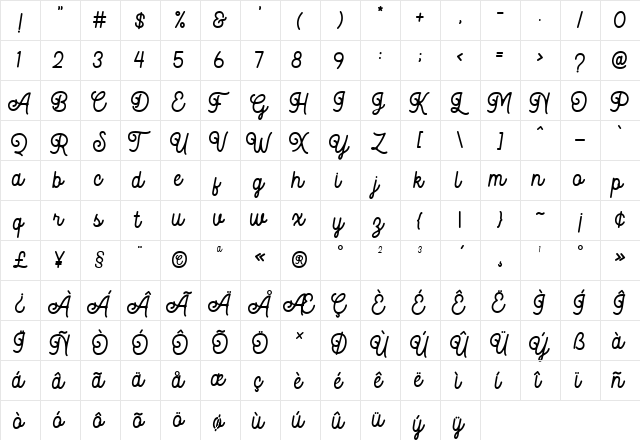
Autoguard Regular
| Foundry | Suby Studio |
| Designer | Teguh Subiyantoro |
Autoguard takes a measured approach to typography — its balanced proportions and neutral character make it a reliable workhorse for both digital and print work.